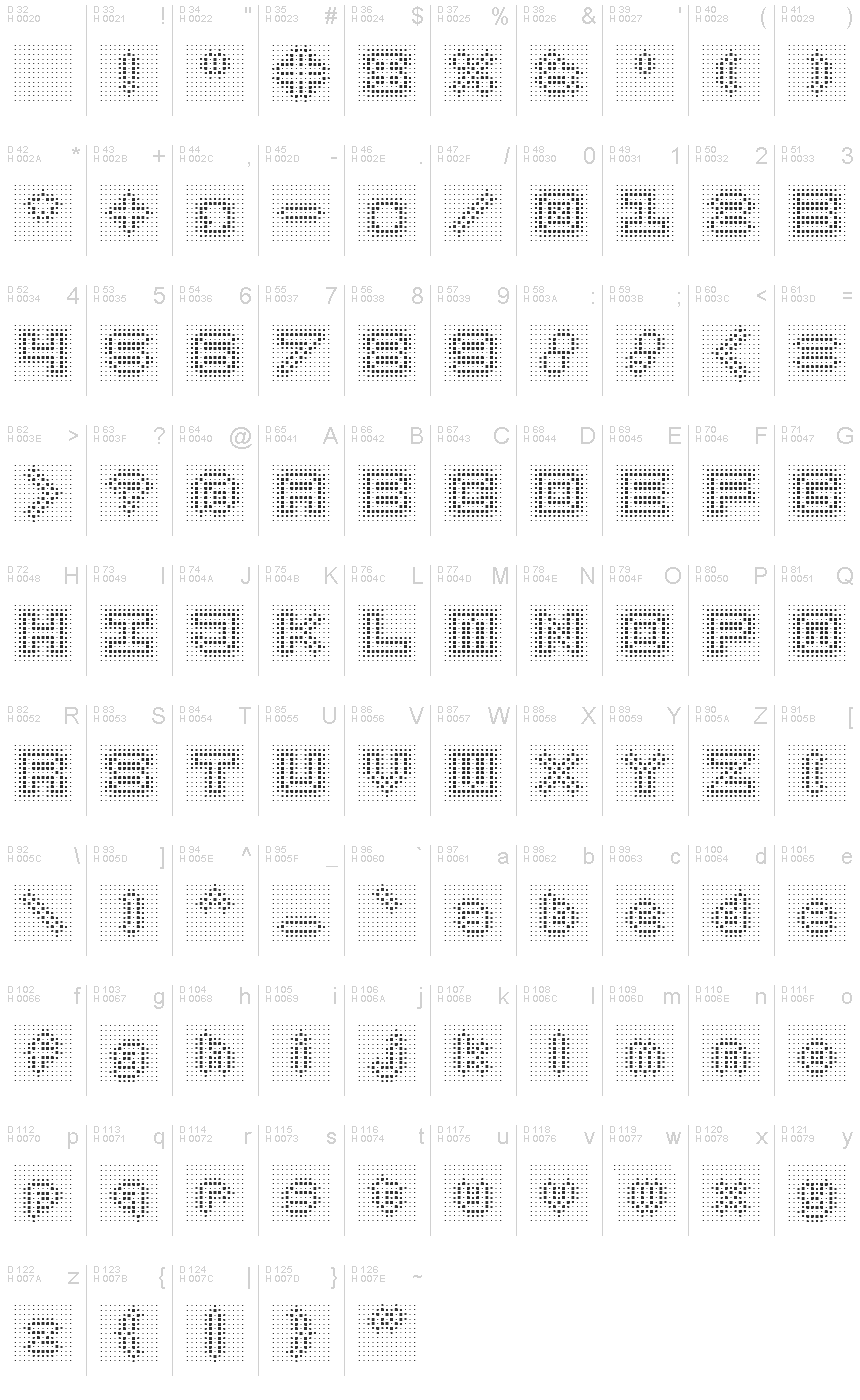
Fuzzy Logic P2 was built with FontStruct Designer description: <p>Fuzzy Logic, but the darkest halftone has been replaced with a copy of the lightest.</p>
<p>The bands in the overlapping regions are artifacts of the FS preview. They don't show up when the font is used elsewhere. However, any size which is not a multiple of the original can create a different type of banding... I recommend using this at larger sizes...</p> Fuzzy Logic